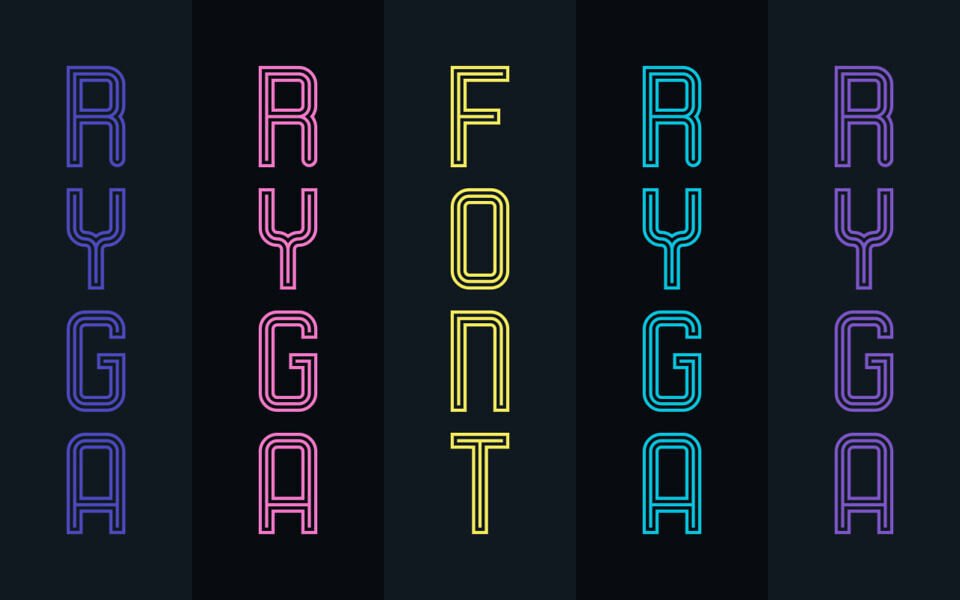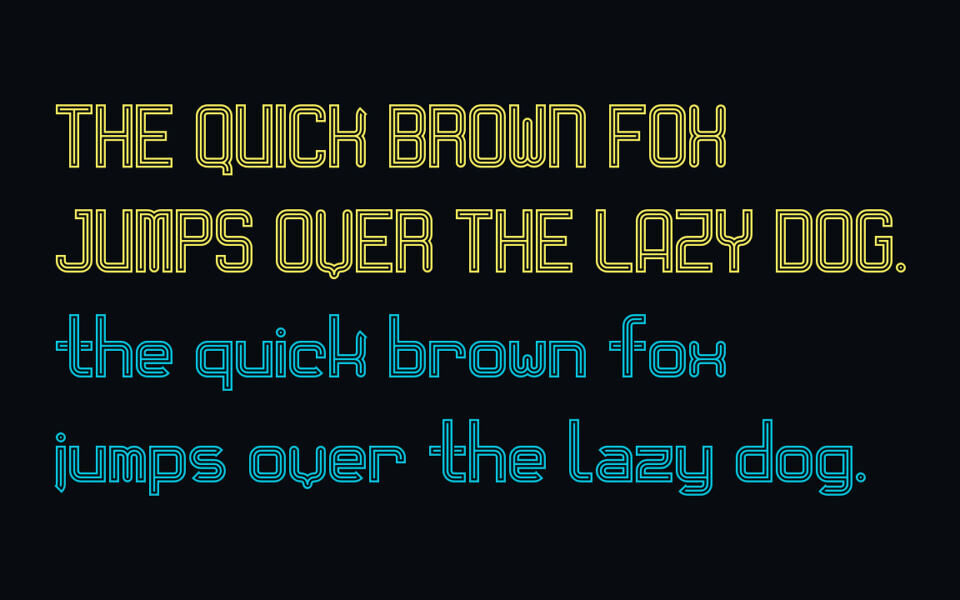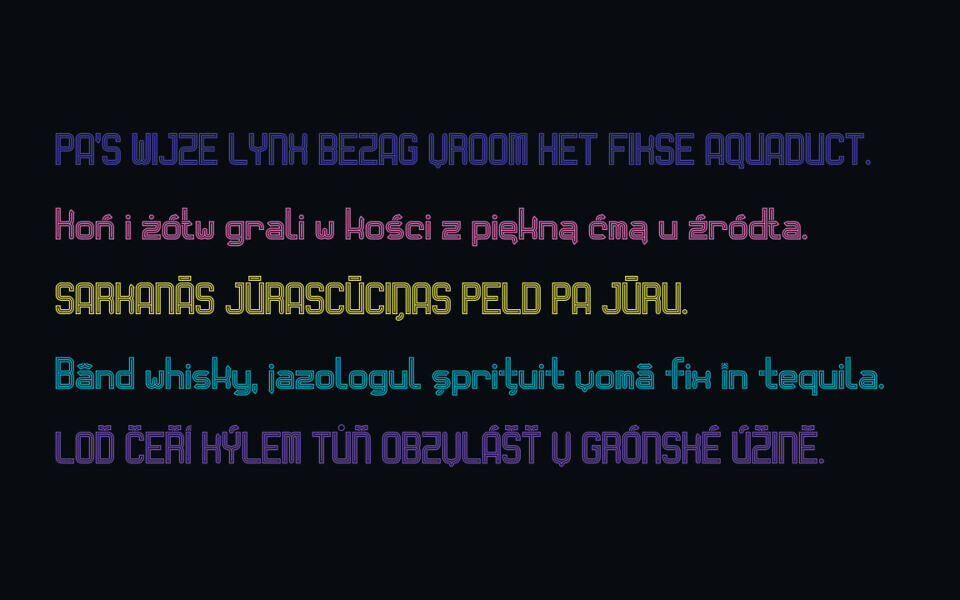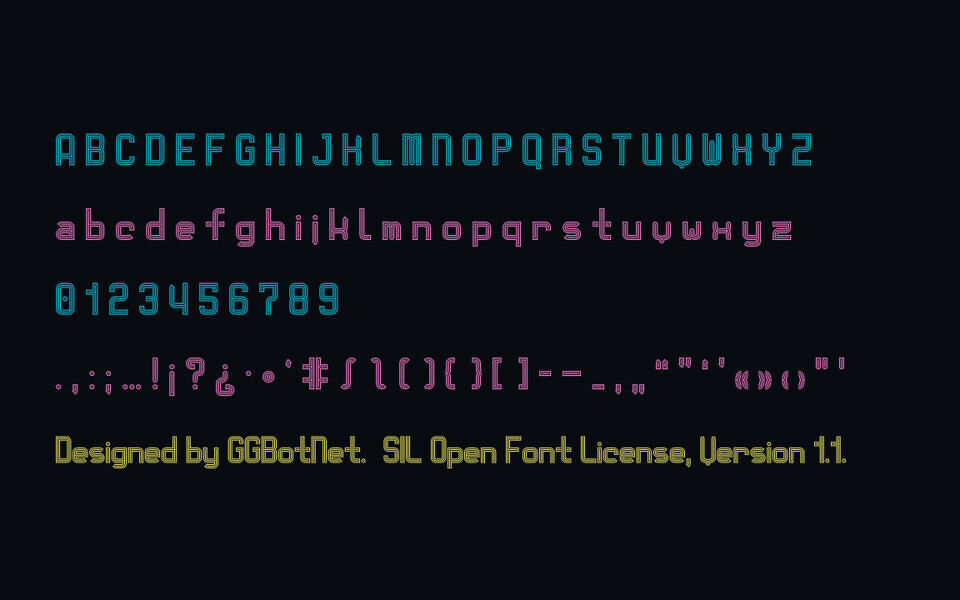
Ryga Font
Ryga is a modern display font with a futuristic twist, featuring layered, double-line letterforms that create a bold and electric presence. Inspired by geometric precision and neon aesthetics, it supports multilingual characters and special glyphs, making it ideal for posters, branding, album covers, and tech-inspired projects.
Ryga’s unique structure offers a dynamic rhythm that stands out in both vertical and horizontal layouts. It delivers visual impact while maintaining legibility—perfect for creative professionals looking to make a statement with neon styling typeface.